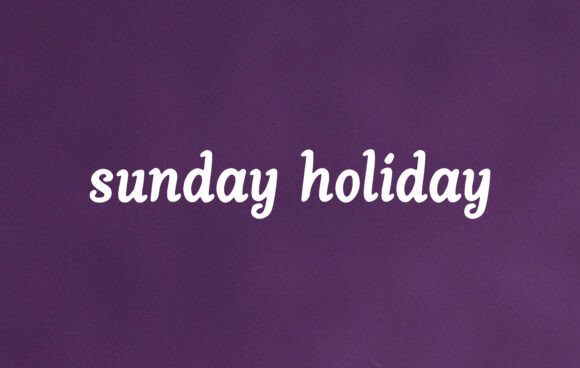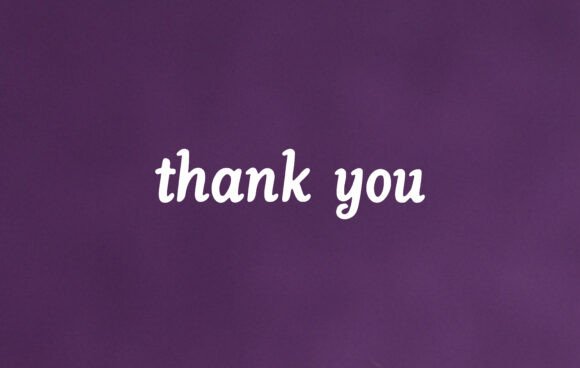
The Perfect Play: Unlocking the Power of Basketball Font
Have you ever been brainstorming ideas for a sports brand or event, only to be stuck on the perfect typography? We’ve all been there – pouring over font libraries, searching for that elusive combination of style and functionality that perfectly captures the energy of the game. For many designers, that elusive combination is found in the Basketball Font, a bold, casual script that’s as much at home on a vintage sign as it is on a modern sports jersey.
Whether you’re creating wordmarks for a new team, designing event posters, or developing packaging for a youth brand, Basketball Font is an invaluable asset in your design toolkit. Its unique blend of nostalgic charm and modern polish makes it an instant hit with clients and audiences alike, delivering confident, approachable impact with every use.
Basketball Font Key Features
- Font Family: Basketball Font is a custom-designed font, with a unique, bold, and dynamic feel.
- Unique Characteristics: The font features a distinctive, dynamic feel, with bold lines and rounded edges, making it perfect for sports-related designs, logos, and branding.
Basketball Font Review
Overall, I think Basketball Font has some nice qualities, but it falls short in a few areas. ✨ Here are some things that work well:
- Fun, energetic vibe: The font’s playful, dynamic feel is perfect for sports-themed designs, like basketball jerseys or posters.
- Easy to read: Despite its bold, decorative style, Basketball Font is surprisingly legible, even at smaller sizes.
- Customization options: The font comes in a range of weights and styles, giving designers plenty of flexibility to create unique designs.
- Overly flashy: While the font’s energetic vibe is a plus, it can also come across as too flashy or gaudy in some designs.
- Limited versatility: Basketball Font is best suited for sports-themed designs; it may not be the best choice for more formal or professional projects.
- Some characters may not render well: I noticed some issues with character spacing and rendering, particularly at smaller sizes.
Overall, Basketball Font is a solid choice for sports-themed designs, but it’s not a one-size-fits-all solution. With a bit of careful planning and execution, designers can create some amazing designs with this font.
Basketball Font is commonly used in sports-themed designs, such as logos, posters, and social media graphics.
It can also be used in educational materials, such as textbooks and worksheets, to add a fun and engaging touch.